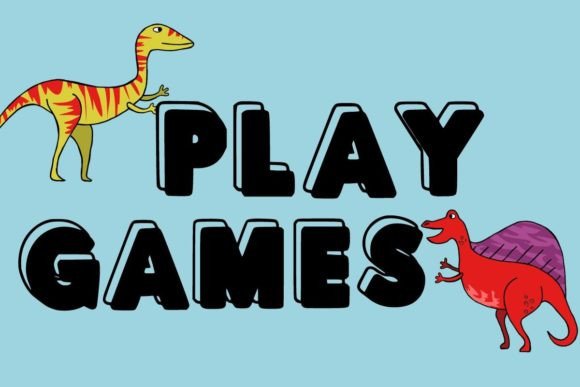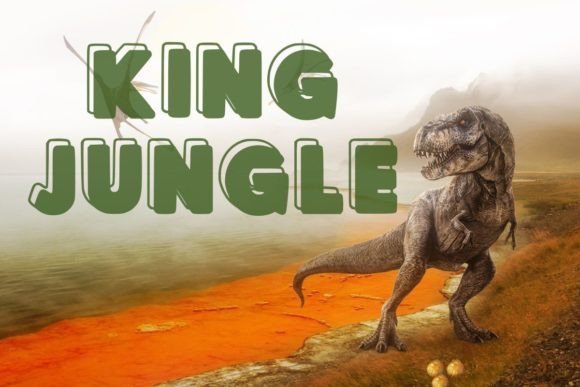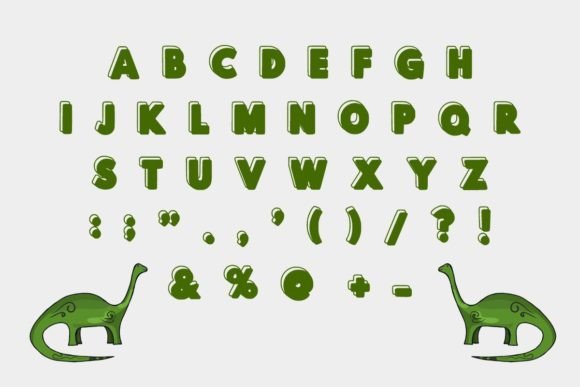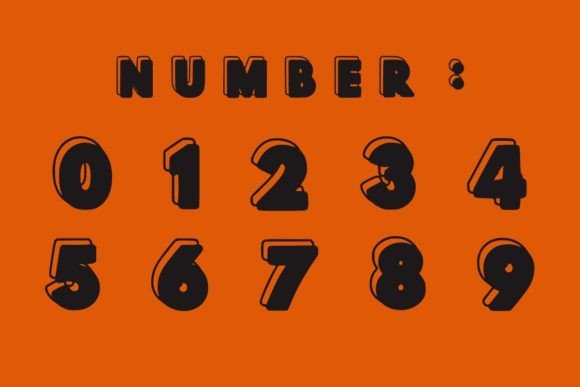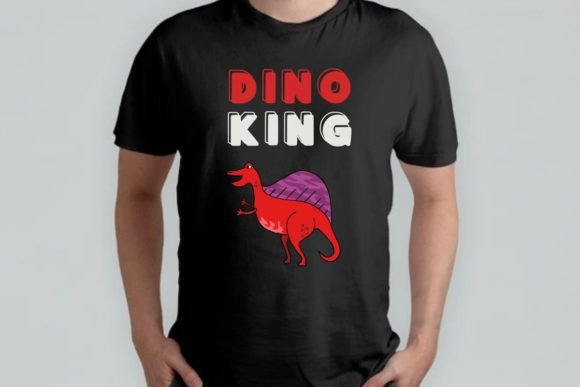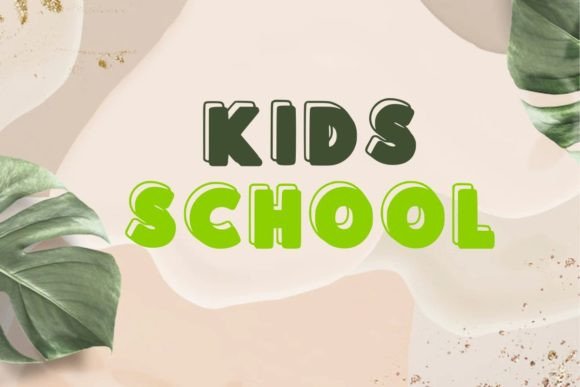
Dino Jungle Font: The Ultimate Choice for Friendly and Fun Designs
Are you tired of using the same old fonts for your designs? Look no further than the Dino Jungle Font! This childish, bold, and easy-to-read display font is perfect for conveying impeccable friendliness in all your design projects. Whether you’re a designer, crafter, or simply someone who loves to create, Dino Jungle Font is sure to become your new go-to font.
What Makes Dino Jungle Font So Special?
Dino Jungle Font is a unique and playful font that is sure to capture the attention of your audience. Its bold and chunky letters make it perfect for headlines, titles, and any other text that needs to stand out. But what really sets it apart is its friendly and approachable vibe. This font is designed to evoke a sense of fun and playfulness, making it perfect for designs that need to appeal to a younger audience or convey a sense of whimsy.
Uses for Dino Jungle Font
The versatility of Dino Jungle Font is one of its greatest strengths. It’s perfect for a wide range of design projects, including:
- Crafts: Whether you’re making cards, scrapbooking, or creating other handmade crafts, Dino Jungle Font is a great choice. Its bold letters and playful vibe make it perfect for adding a personal touch to your creations.
- Digital Design: If you’re a digital designer, you’ll love working with Dino Jungle Font. It’s perfect for creating eye-catching graphics, social media posts, and website headers.
- Presentations: Add some fun and personality to your presentations with Dino Jungle Font. Its bold letters and friendly vibe make it perfect for titles, headings, and other text that needs to stand out.
- Greeting Cards: Create fun and playful greeting cards with Dino Jungle Font. Its childish and approachable vibe make it perfect for birthday cards, get-well cards, and other friendly correspondence.
Why Designers and Crafters Love Dino Jungle Font
So why do designers and crafters love Dino Jungle Font? Here are just a few reasons:
- Easy to Read: Despite its bold and chunky letters, Dino Jungle Font is surprisingly easy to read. This makes it perfect for designs that need to communicate a message quickly and clearly.
- Versatile: As mentioned earlier, Dino Jungle Font is perfect for a wide range of design projects. Its versatility makes it a great addition to any designer’s or crafter’s toolkit.
- Fun and Playful: Dino Jungle Font is the perfect choice for designs that need to evoke a sense of fun and playfulness. Its childish and approachable vibe make it perfect for appealing to a younger audience or adding a touch of whimsy to your designs.
How to Use Dino Jungle Font in Your Designs
Using Dino Jungle Font in your designs is easy! Here are a few tips to get you started:
- Pair it with Other Fonts: Dino Jungle Font looks great when paired with other fonts. Try pairing it with a more traditional font for a fun and playful contrast.
- Use it for Headlines: Dino Jungle Font is perfect for headlines and titles. Its bold letters and friendly vibe make it perfect for grabbing the attention of your audience.
- Experiment with Colors: Dino Jungle Font looks great in a wide range of colors. Experiment with different colors to find the perfect one for your design.
In conclusion, Dino Jungle Font is a fun, playful, and versatile font that’s perfect for designers and crafters. Its bold letters, friendly vibe, and easy-to-read design make it perfect for a wide range of design projects. Whether you’re creating crafts, digital designs, presentations, or greeting cards, Dino Jungle Font is sure to become your new go-to font. So why not give it a try and see the difference it can make in your designs?